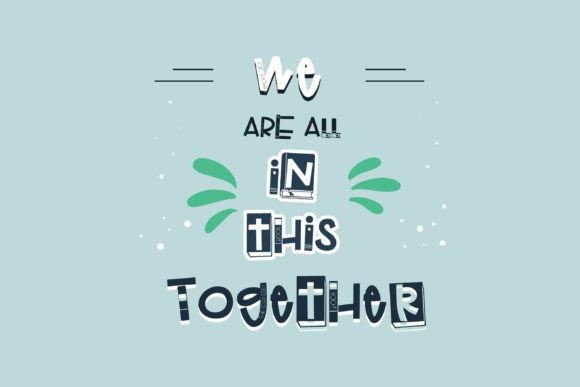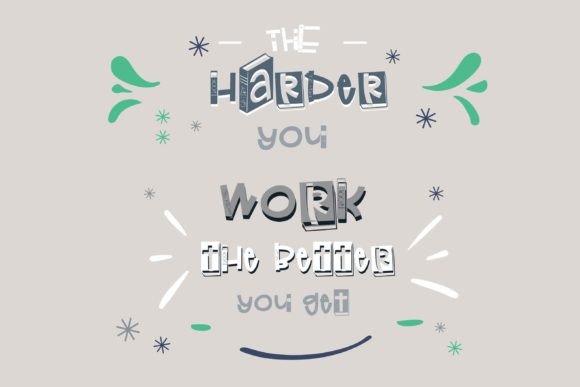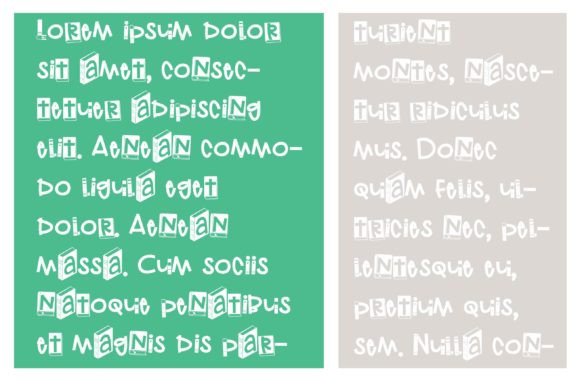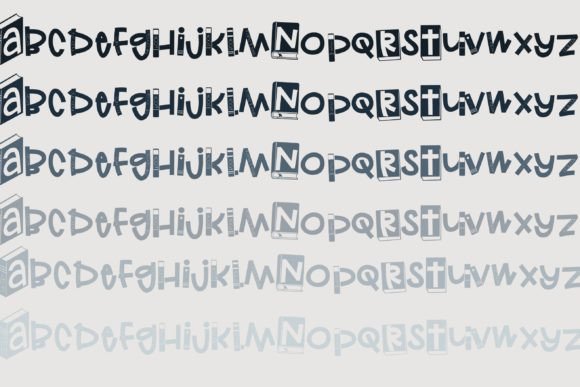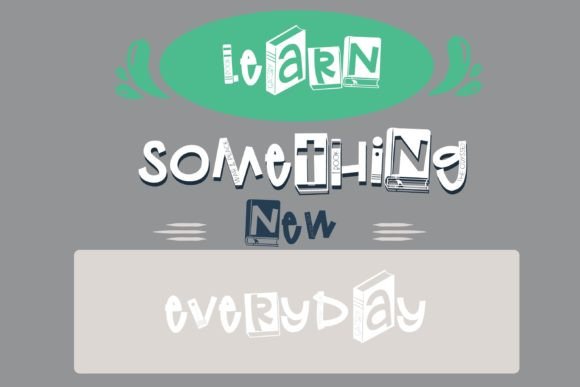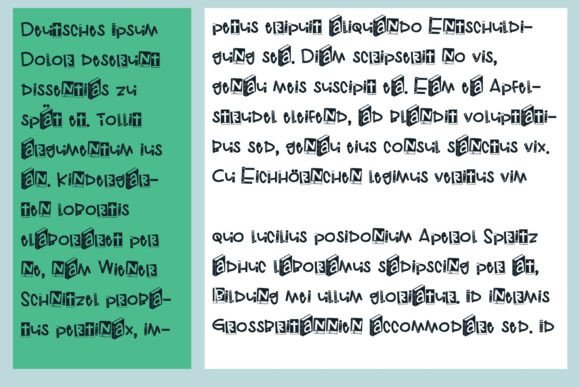
The Bookcase Font: A Fun and Quirky Addition to Your Design Toolbox
I’ll never forget the time I was working on a project for a book lover’s client, and I just couldn’t find the right font to capture the essence of their personality. The client wanted something playful, yet sophisticated, and I was determined to deliver. That’s when I stumbled upon the Bookcase font, and it quickly became my go-to for the project. In this article, I’ll share my experience with this fun sans serif display font and explore its features, uses, and alternatives.
An Honest Review of Bookcase Font
So, what makes Bookcase font so special? Let’s dive into the good stuff! 😊
- ✨ Unique and playful design featuring letters on books and book spines
- ✅ Highly versatile and suitable for various design projects, from crafts to digital designs
- ✅ Easy to read and understand, even in larger sizes
- ✅ Fun and creative way to add a personal touch to your designs
Of course, no font is perfect, and Bookcase has a few quirks to consider:
- 🤔 Limited character set, which may not be suitable for longer texts or body copy
- ⚠️ Some letters may appear a bit distorted or uneven due to the book spine design
The Backstory Behind Bookcase Font
The Bookcase font was designed with book lovers in mind. The creator, a typography enthusiast, wanted to craft a font that would capture the essence of books and reading. Inspired by the idea of bookshelves and book spines, the designer carefully crafted each letter to resemble a book, resulting in a unique and playful font that’s perfect for book-related projects.
| What is the Bookcase font best used for? | The Bookcase font is ideal for book-related projects, such as book covers, bookmarks, and literary-themed designs. It’s also great for crafts, digital designs, and presentations. |
| Is the Bookcase font suitable for body copy? | No, the Bookcase font is best used for display purposes, such as headings and titles. Its unique design and limited character set make it less suitable for longer texts. |